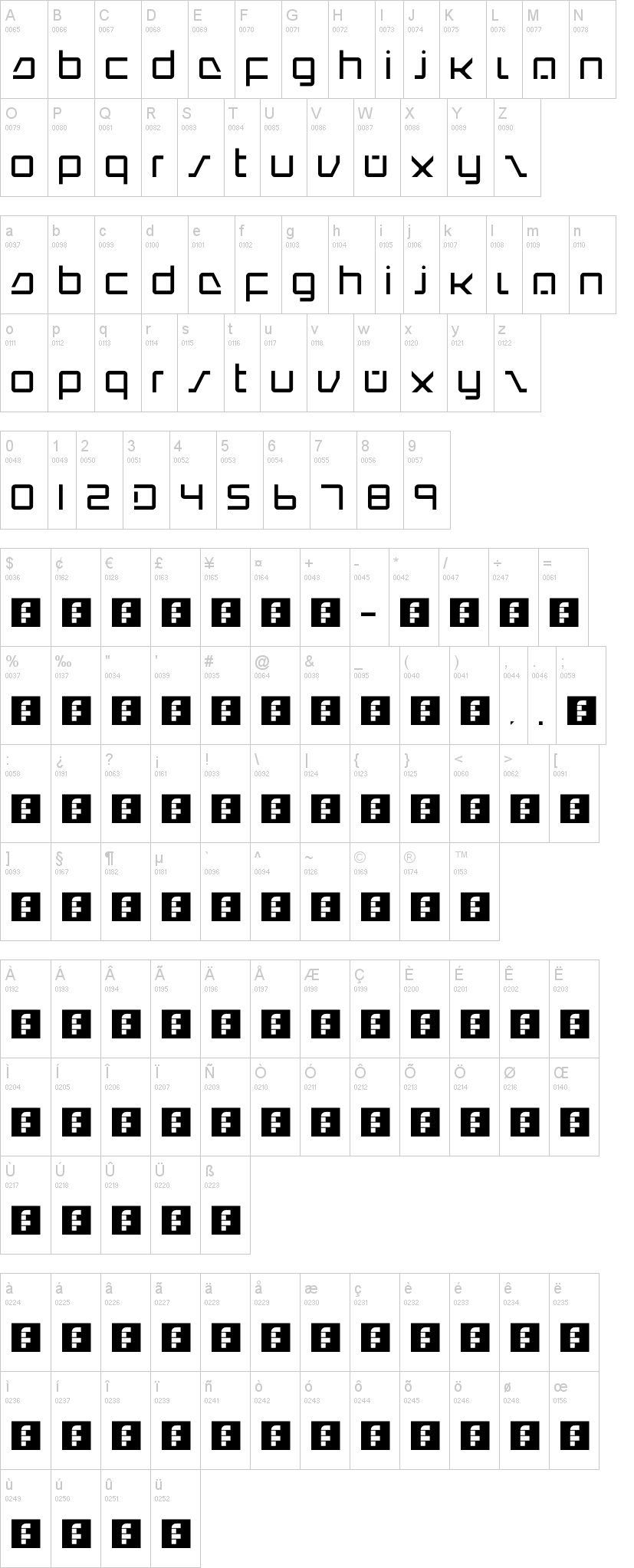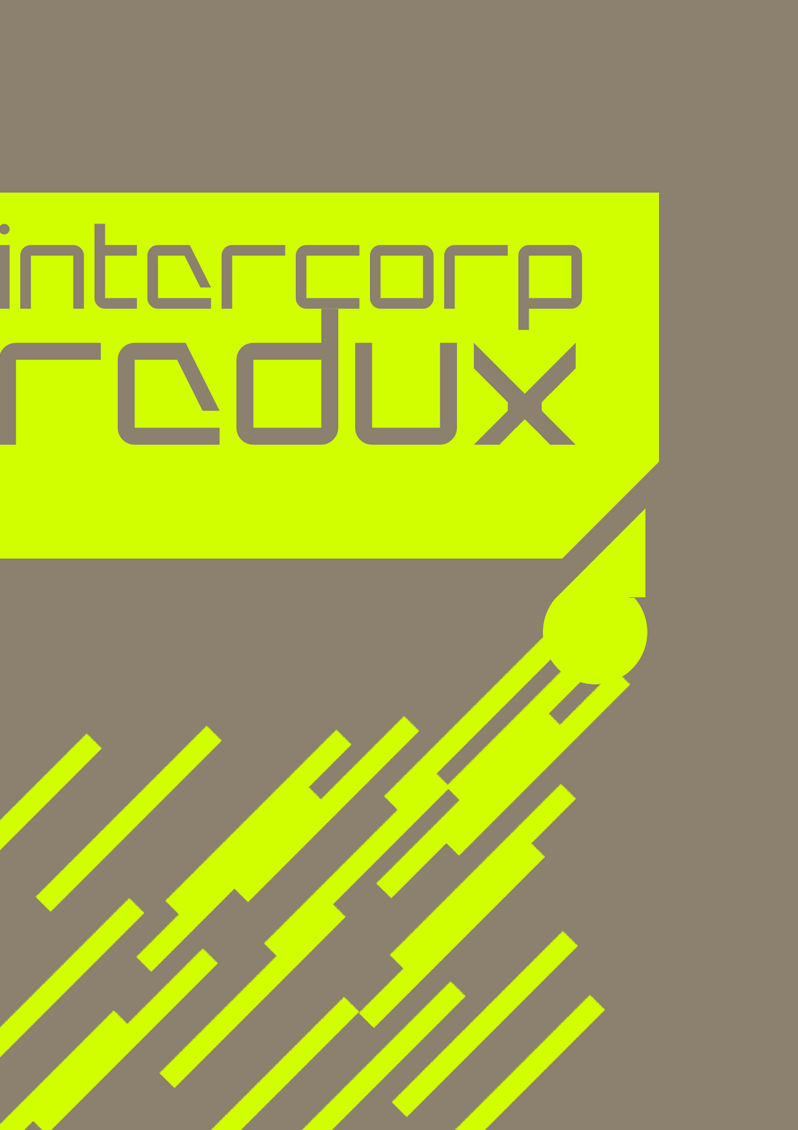
Шрифт Intercorp Redux
"A modern font that uses my Intercorp font as a base, although is much different. While the original has a theme, this doesn't, although it is inspired partially by some of The Designer's Republic work.
Intercorp has been completely redesigned, and bears little resembleance to the original. The font is 50% thinner, some letters made more standard and some angled to make a more fresh look."
Made in 2009.